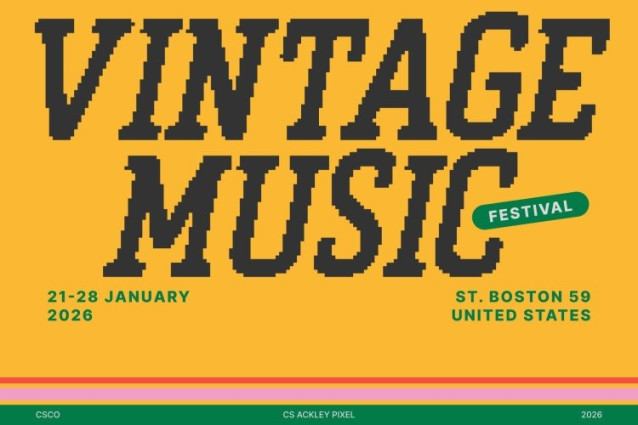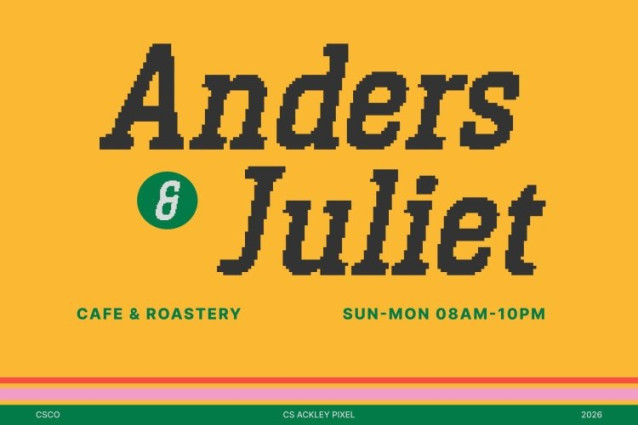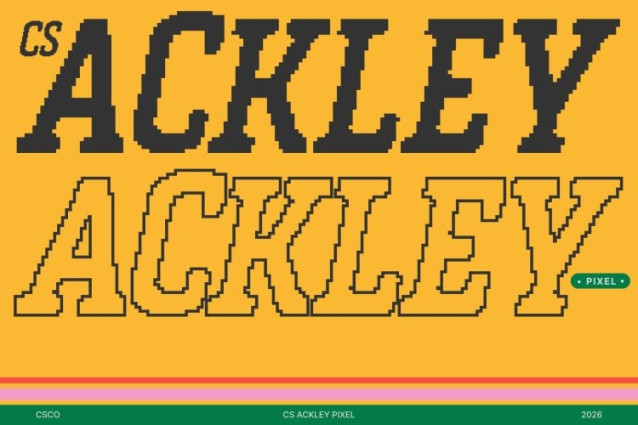
CS Ackley Pixel Font This is a bold slab serif typeface built to deliver a commanding and industrial visual impact. Featuring thick strokes, sturdy slab serifs, and a rigid pixel-based structure, this font projects strength, confidence, and authority. Its solid construction immediately captures attention, making it ideal for designs that demand a strong presence.
Maximum Readability at Any Scale
Designed for clarity and impact, this font excels in large-format applications. Its bold, blocky letterforms remain sharp and highly legible from a distance, making it perfect for headlines, posters, billboards, signage, and advertisements. Whether viewed up close or far away, its visual strength remains uncompromised.
Modern and Sturdy for Strong Branding
With modern proportions and an assertive stance, this is well suited for branding that requires durability and confidence. It communicates reliability and seriousness, making it an excellent choice for logos, product packaging, promotional materials, and industrial-themed designs.
Energetic and Dynamic Appeal
This font also thrives in sports and high-energy projects. Its bold posture and pixel precision enhance motion and intensity, making it ideal for team branding, sports apparel, event graphics, and competitive visuals. Strong, modern, and unapologetically bold, this is designed to make every message feel powerful and unstoppable.